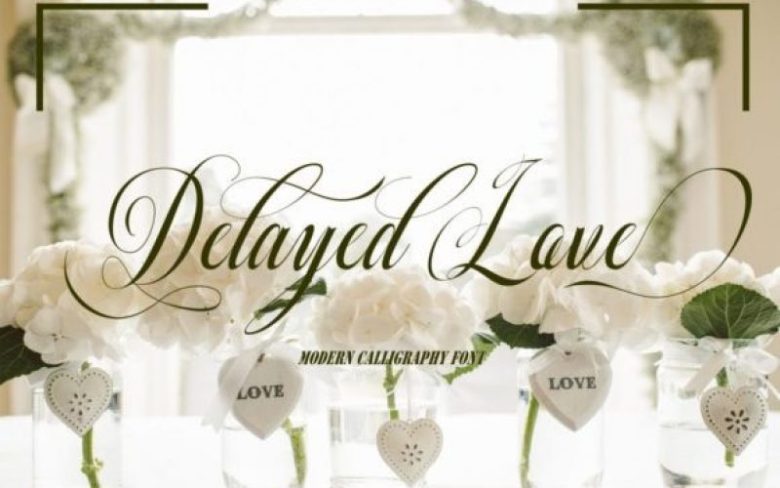
Delayed Love Calligraphy Font
Delayed Love beautifully merges sophistication and authenticity, delivering an undeniably charming script. Fall in love with its effortless charm, and turn any design project into a masterpiece!
This font is PUA encoded which means you can access all of the magical and fancy glyphs and swashes with ease! It also features a wealth of special features including alternate glyphs and ligatures.